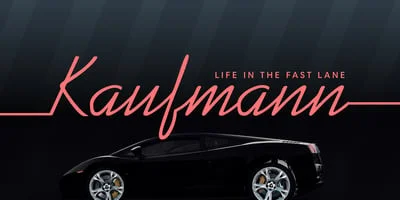
Kaufmann Font
Kaufmann Font is perfect for elegant script design projects including luxury wedding invitations, high-end calligraphy services, premium stationery brands, sophisticated event planning, exclusive boutique signage, elegant restaurant menus, upscale beauty salons, and refined marketing campaigns. This graceful typeface works perfectly for luxury bridal studios, elegant greeting card companies, sophisticated personal branding, high-end fashion boutiques, and projects that celebrate the timeless beauty of handwritten elegance and script sophistication.
What makes Kaufmann Font exciting is its flowing script character that perfectly captures the essence of elegant handwriting and calligraphic sophistication. The font features graceful letterforms with fluid connections that reflect the natural beauty and artistic skill of professional calligraphy. Its refined design elements embody the spirit of handwritten elegance and sophisticated penmanship, making it perfect for projects that need to convey grace, elegance, and connection to calligraphic traditions. The carefully crafted script proportions create an atmosphere of elegant sophistication and handwritten authenticity.
Kaufmann Font comes in multiple family variations including elegant, flowing, sophisticated, and script styles. Each weight maintains the distinctive calligraphic character while offering different levels of elegance intensity and script presence. The font family includes script alternates, elegant ligatures, and calligraphic variations that provide designers with comprehensive options for creating truly graceful and authentically script-inspired typographic compositions that celebrate handwritten excellence.
Whether you're designing elegant branding, creating sophisticated marketing materials, or developing script promotional graphics, Kaufmann Font provides the perfect typographic foundation for projects that celebrate calligraphic excellence and script sophistication. This remarkable typeface transforms ordinary text into compelling expressions of handwritten wisdom and elegant artistry. Download this graceful font today and script your design projects with the calligraphic authenticity and elegant refinement that captures the essential spirit of sophisticated handwriting and script elegance.